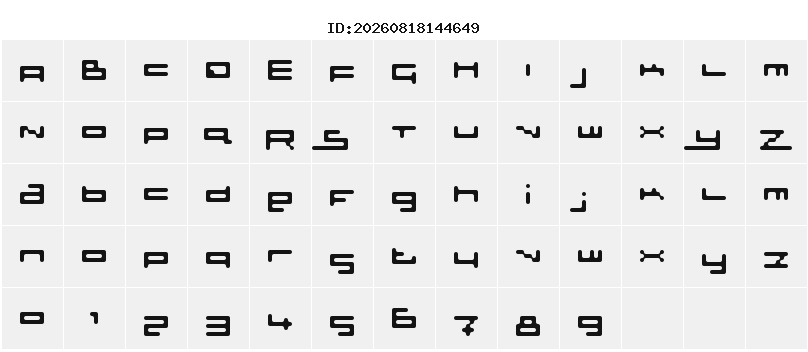
• Font Name: Sloth Rounded
• Designer: qwertyacme
• Description: “Sloth Rounded” was built with FontStruct “Sloth Rounded” is based on “sloth” by “qwertyacme” (http://fontstruct.com/fontstructors/qwertyacme)
Sloth Rounded.ttf is a modern, elegant sans-serif font designed for ultimate readability and visual harmony. Perfect for branding, headlines, web design, and print materials.